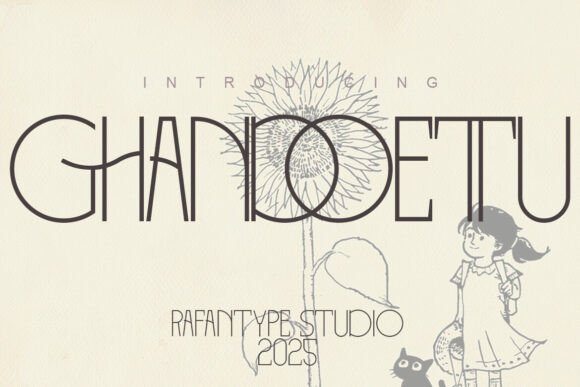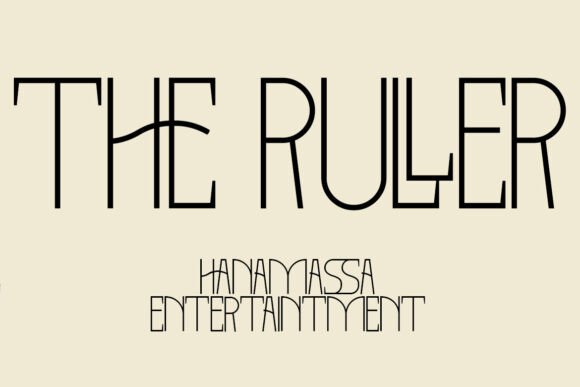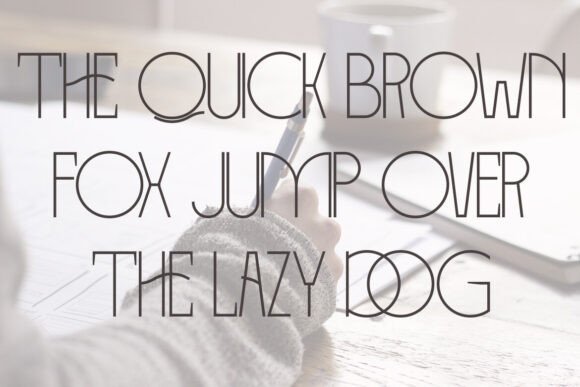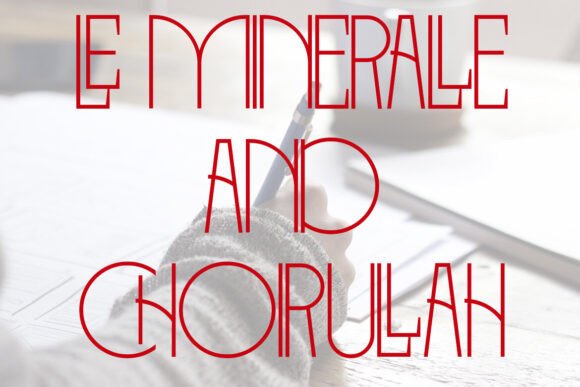
Ghandoettu Font
About the Ghandoettu Font
Add a touch of class to your work with the Ghandoettu Font, a truly exceptional typeface. Ghandoettu is an elegant sans serif font, that features a very delicate and classy look. Not too thin and not too thick, balanced and varied, It was designed to enhance the beauty of your projects.
Ghandoettu’s elegance makes it ideal for branding projects requiring a sophisticated yet approachable feel, particularly logos, short headlines, and packaging design where its refined details shine. It also works well in posters or invitations for upscale events. However, its delicate nature makes it unsuitable for body text or UI elements where readability at smaller sizes is crucial. Long paragraphs set in Ghandoettu would be difficult to read.
Pairing Ghandoettu effectively depends on the desired mood. For a modern, clean aesthetic, consider pairing it with a geometric sans-serif like Futura or a neutral serif like Garamond. To add a touch of playfulness without sacrificing elegance, a script font such as Allura could be used for accents.
The overall personality of Ghandoettu is sophisticated and refined, conveying a sense of understated luxury and calm confidence. It’s a font that speaks of quality and timeless style.
Ghandoettu Font Usage Examples
Ghandoettu Font Example